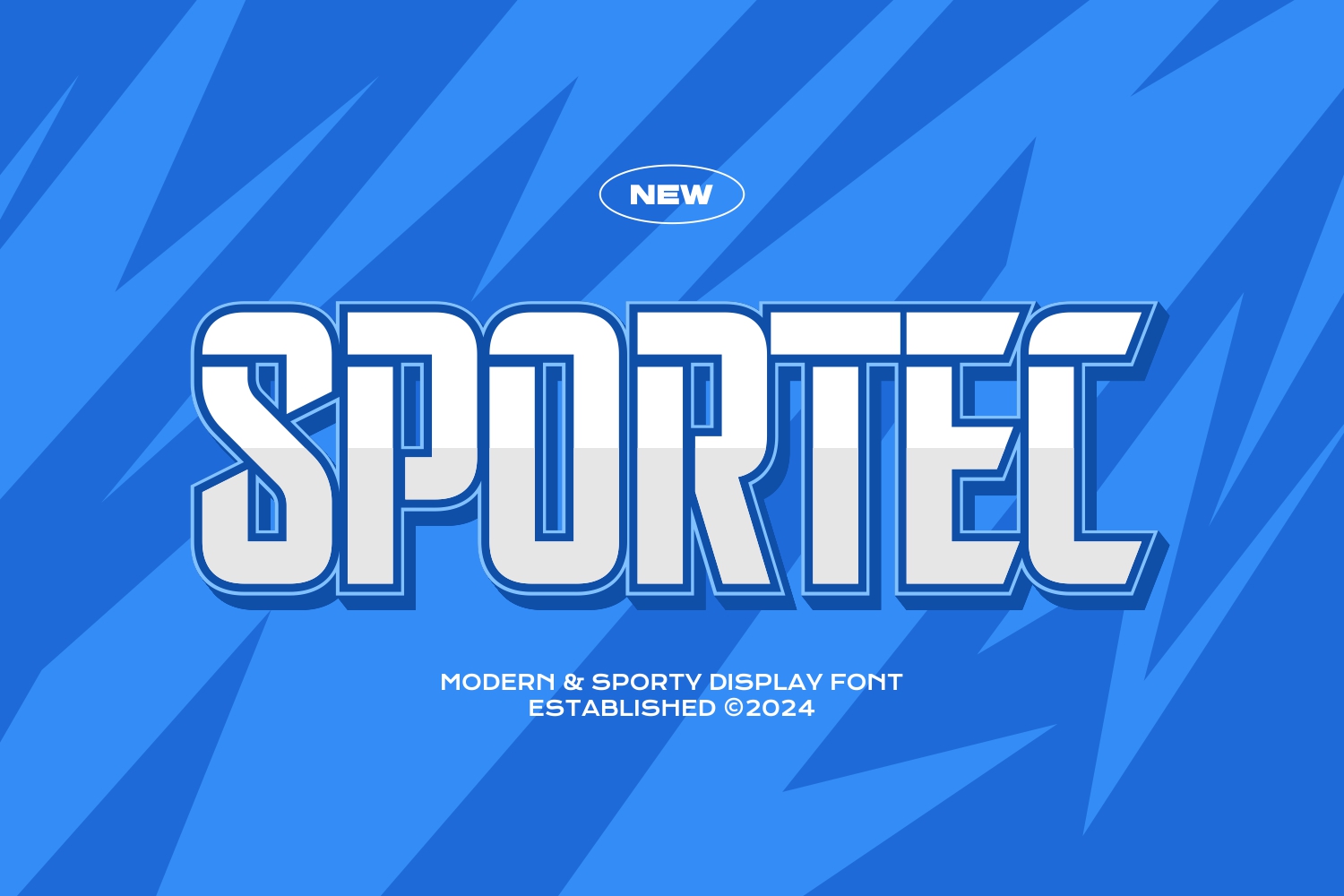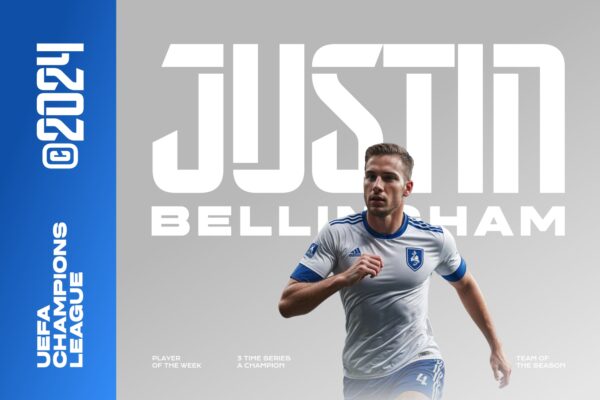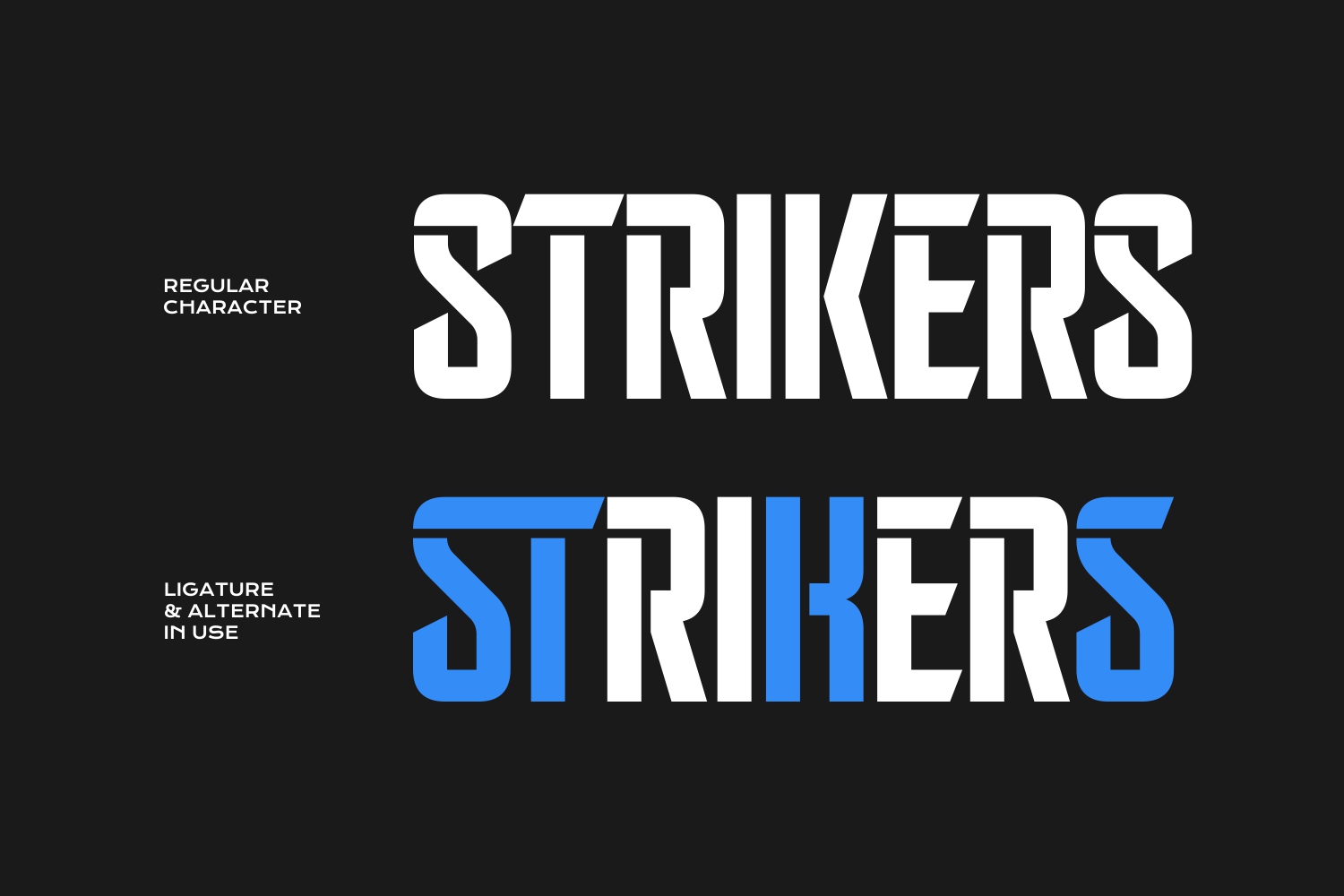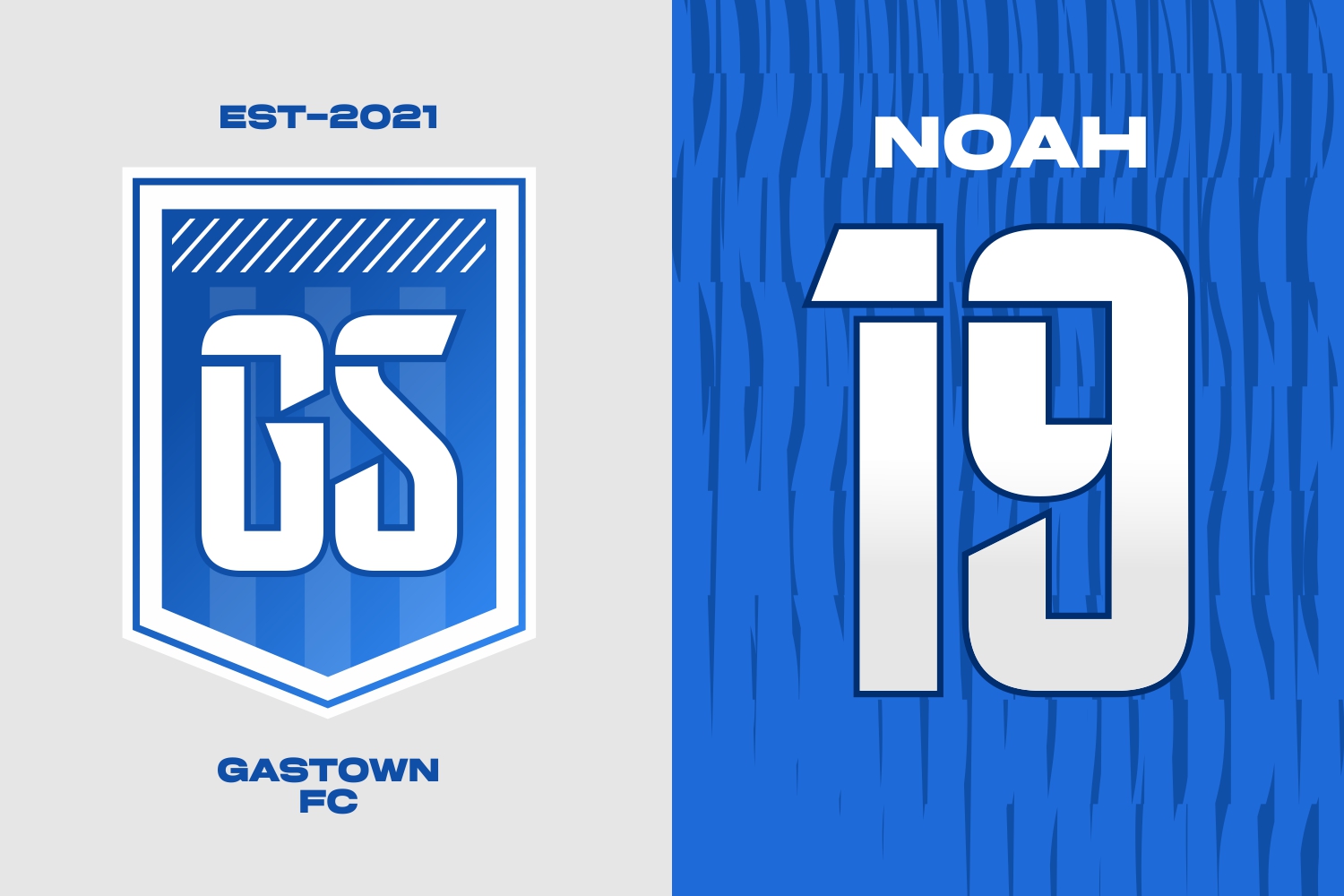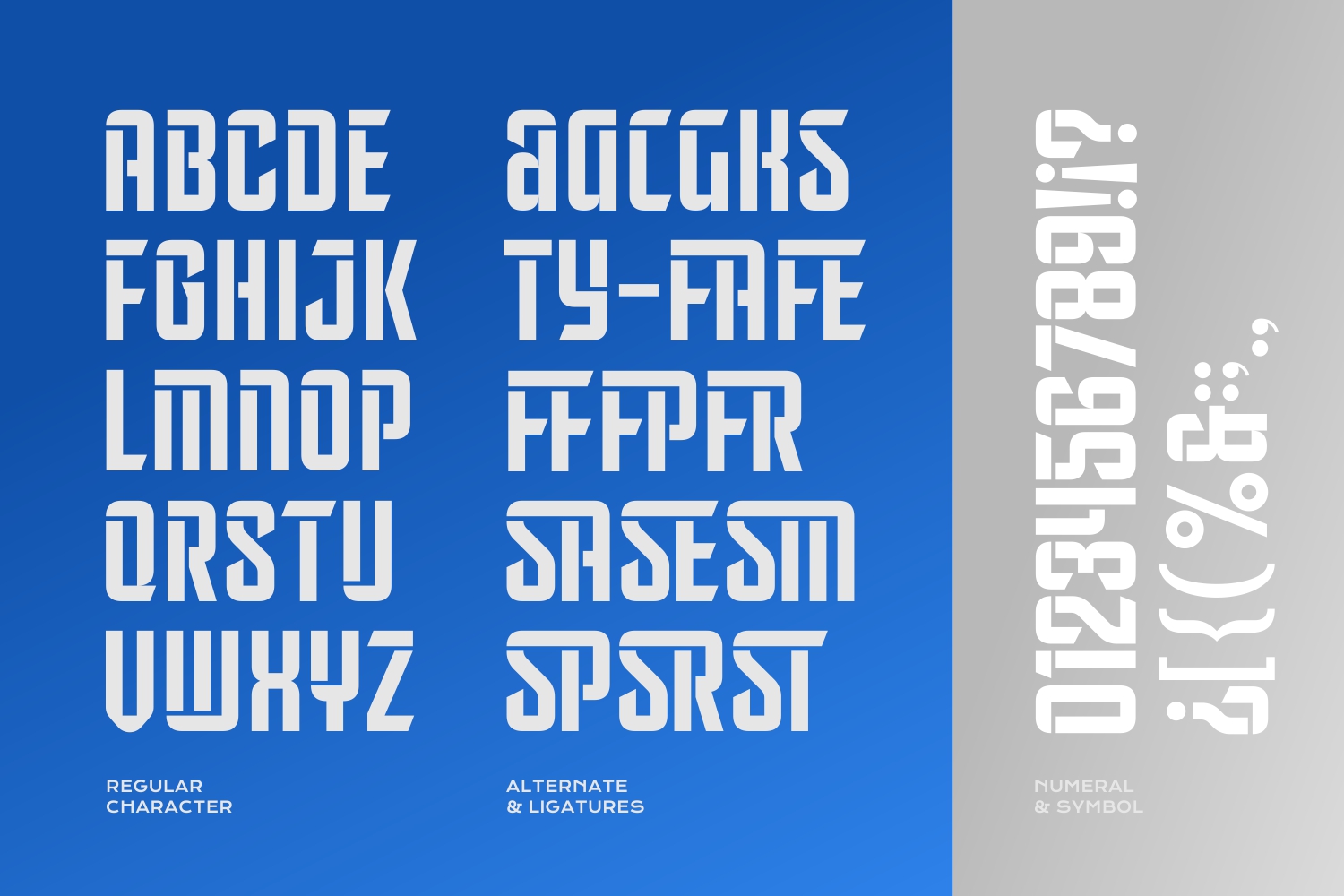
Sportec
Sportec is a bold and dynamic display font designed with a modern athletic spirit. With its sharp angles, geometric cuts, and sleek inline style, Sportec captures the intensity and speed of competitive sports. This font is perfect for headlines, jerseys, esports branding, posters, and team logos that demand high energy and instant impact.
Packed with alternate characters and stylistic ligatures, Sportec brings flexibility to your design while maintaining a cohesive, futuristic look. Whether you’re designing for a championship event, sportswear brand, or motivational campaign, Sportec keeps your typography fast, focused, and fierce.